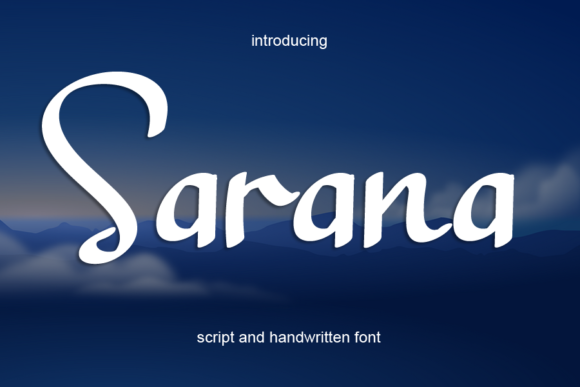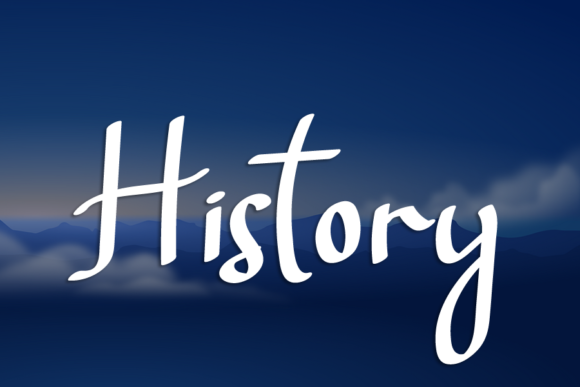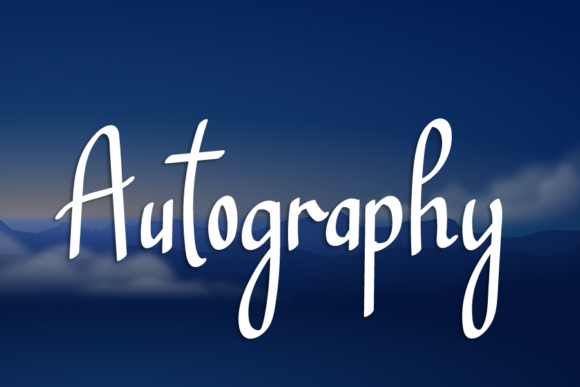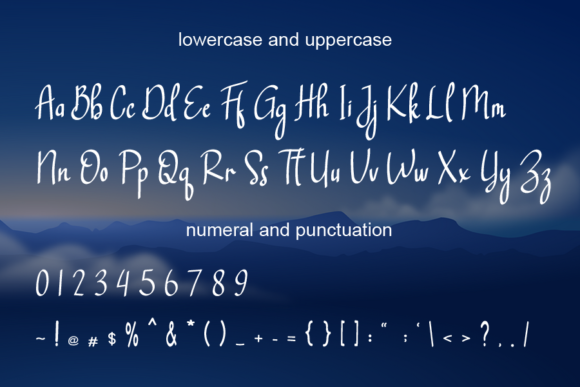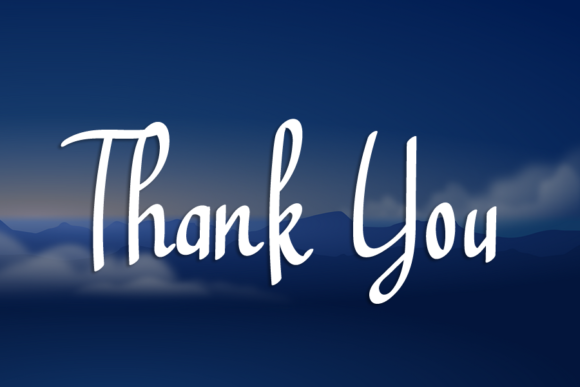
Sarana Font
About Sarana Font
Sarana is a playful and well-rounded handwritten font. This gentle font will look gorgeous on a variety of design ideas. It will add a joyful and romantic touch to each of your projects!